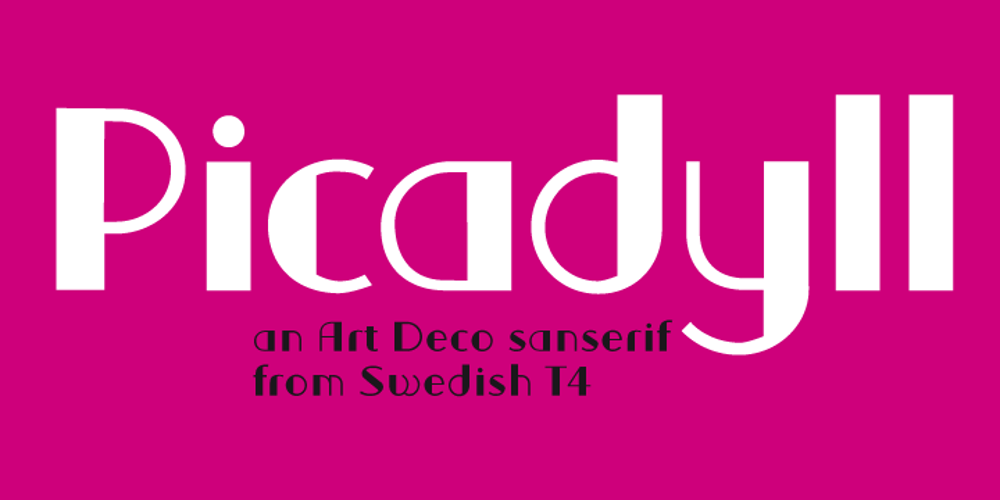
Picadyll
Picadyll font
Picadyll Font Family was designed by Bo Berndal and published by T4 Foundry. Picadyll contains 1 styles and family package options. Picadyll is a sanserif that flirts with the 1920s Art Deco tradition but adds a modern touch. The sober letter design brings old movie posters and packaging to mind. Picadyll is a sophisticated and fun font from Swedish type designer Bo Berndal and the T4 font foundry. It is an OpenType creation, for both PC and Mac.